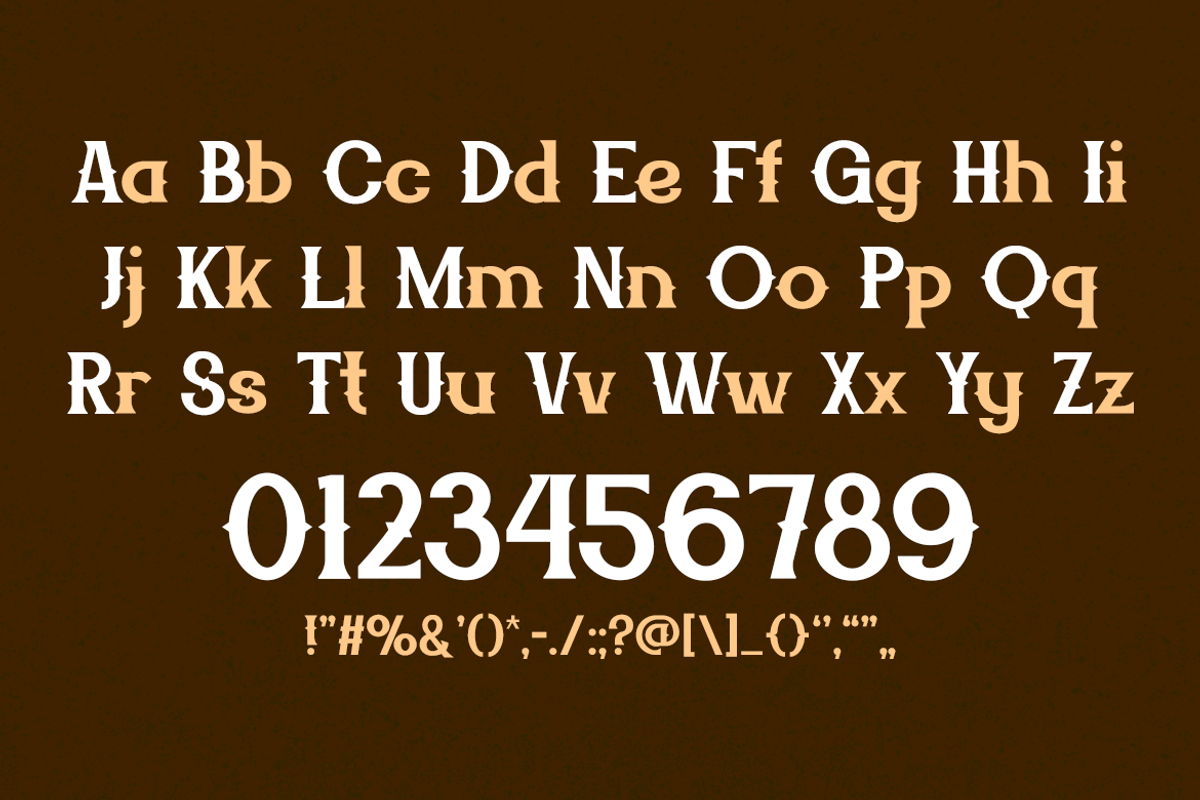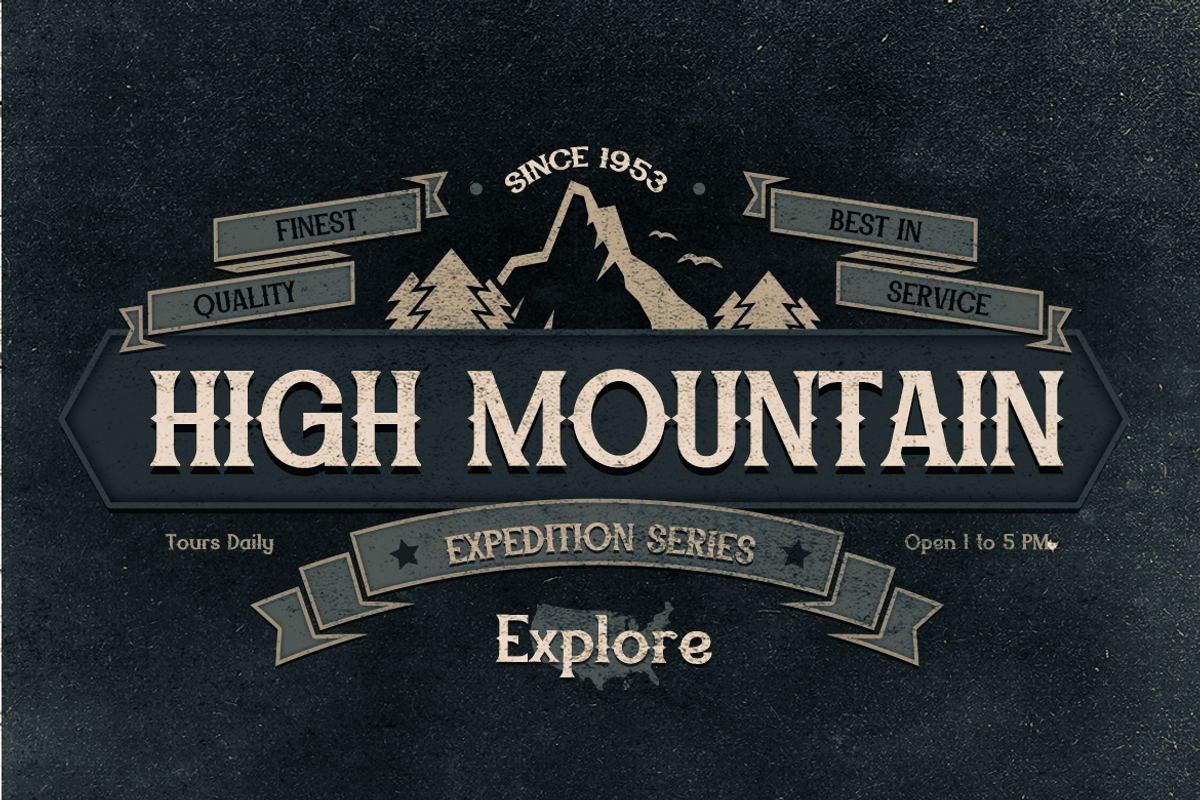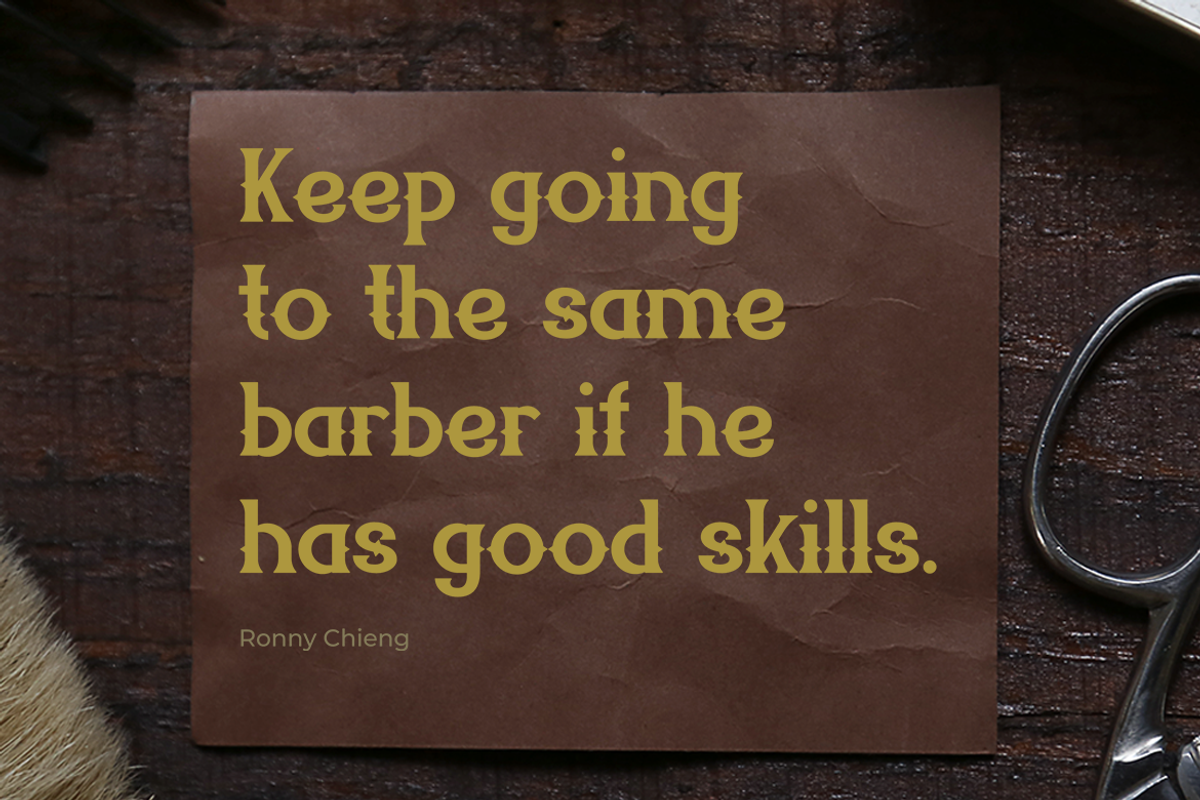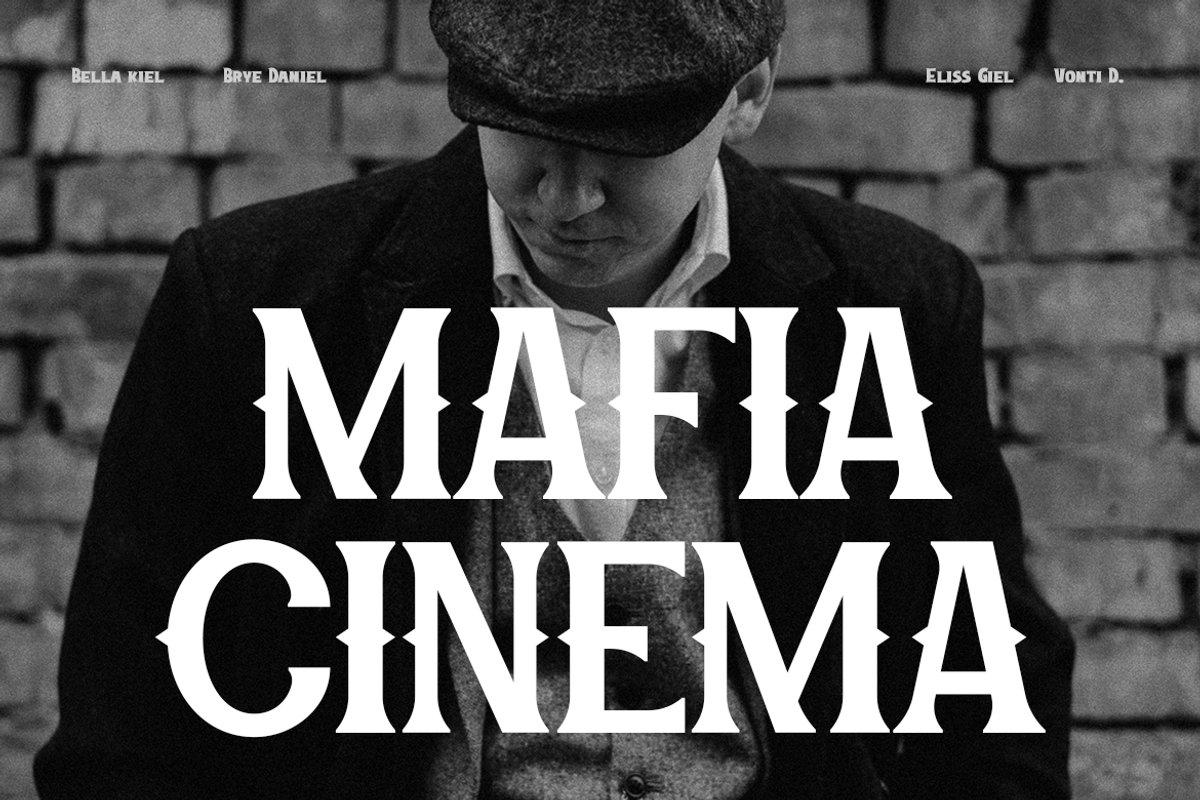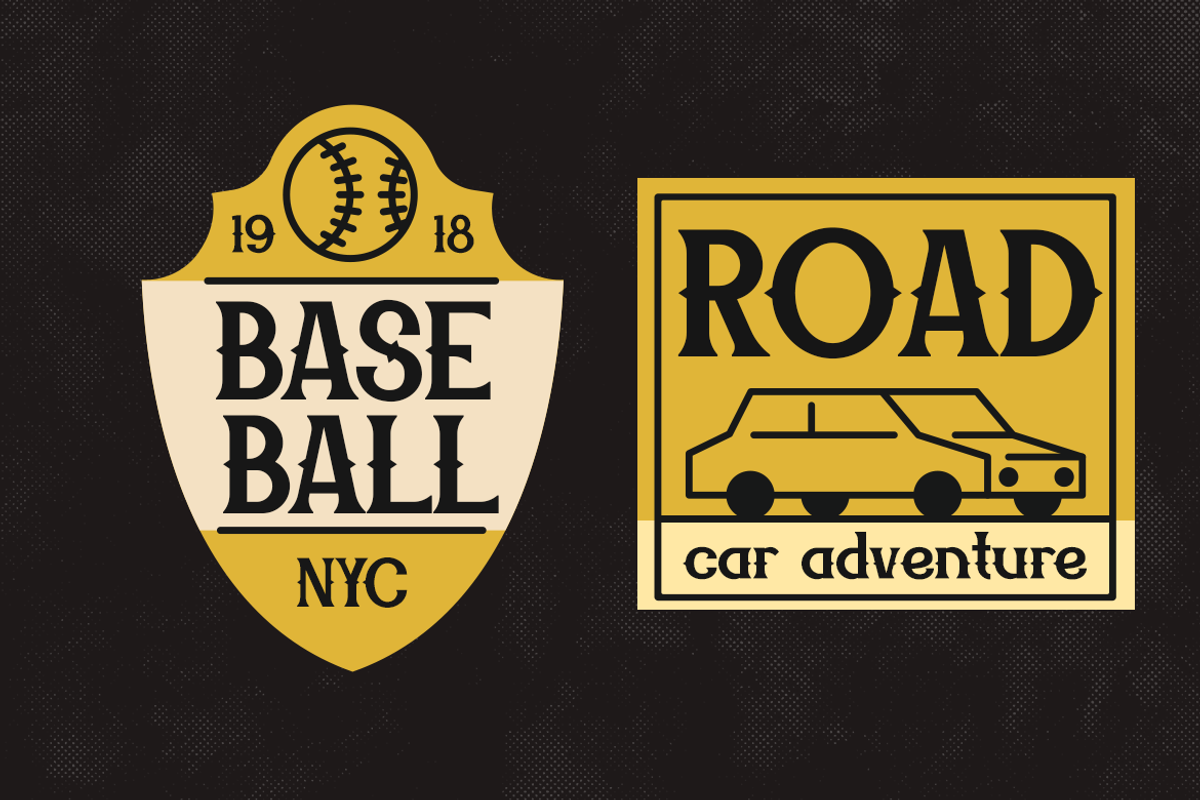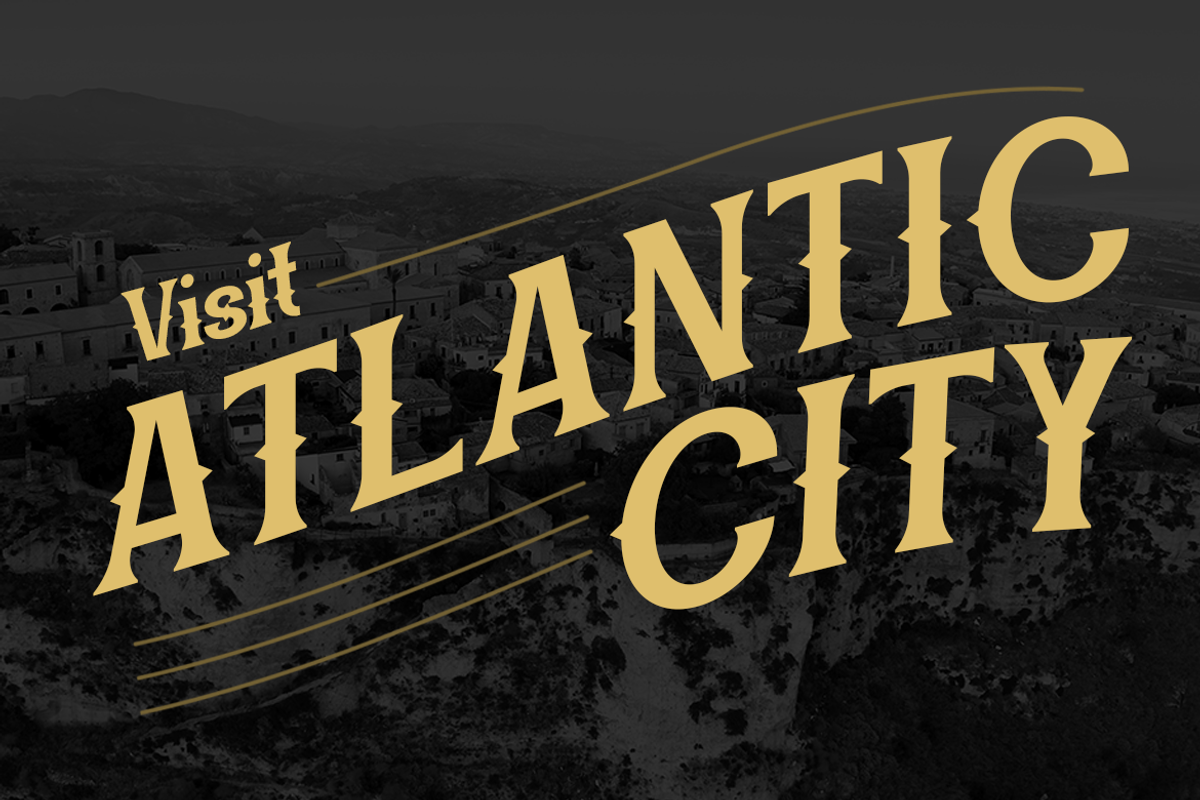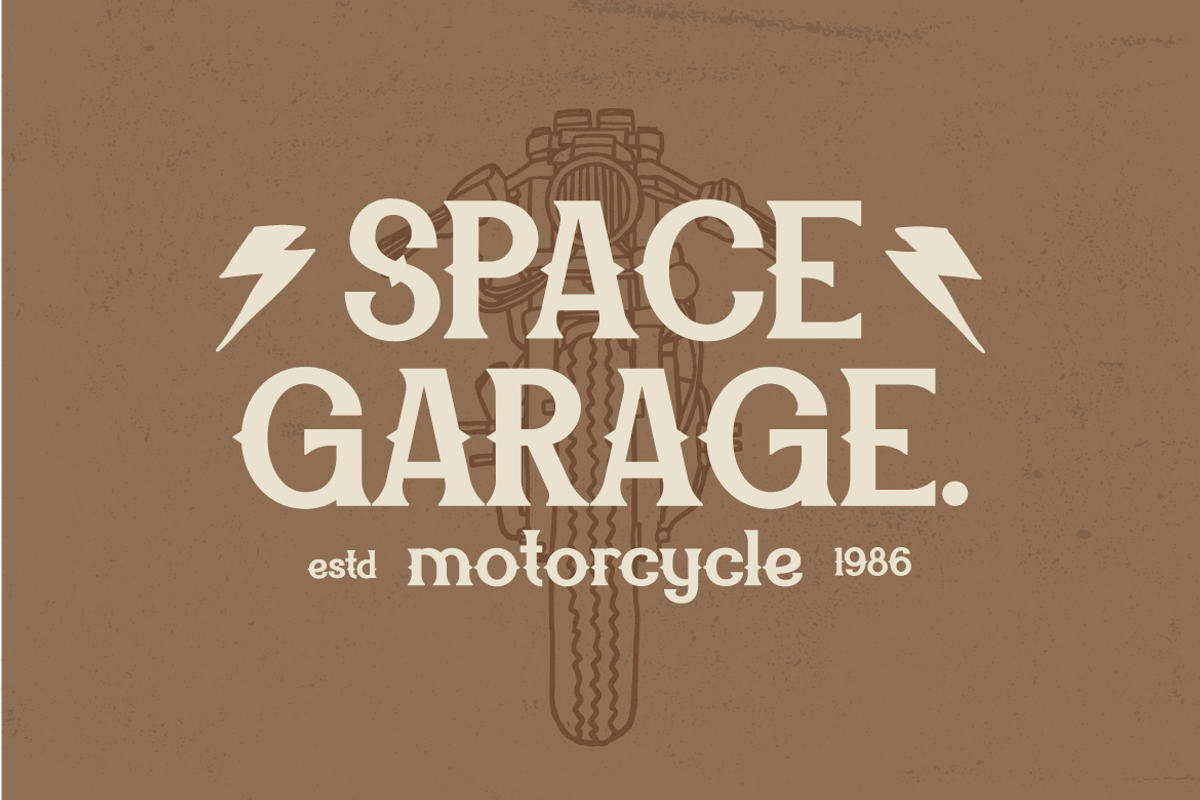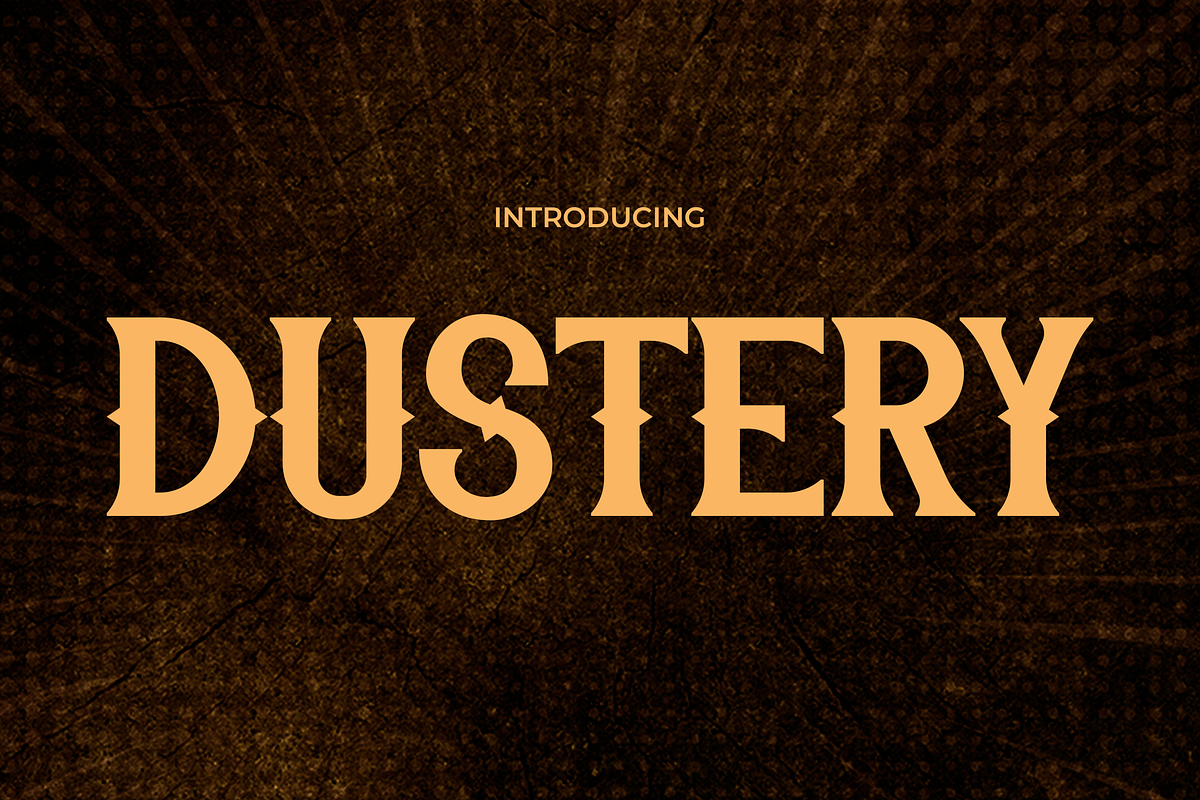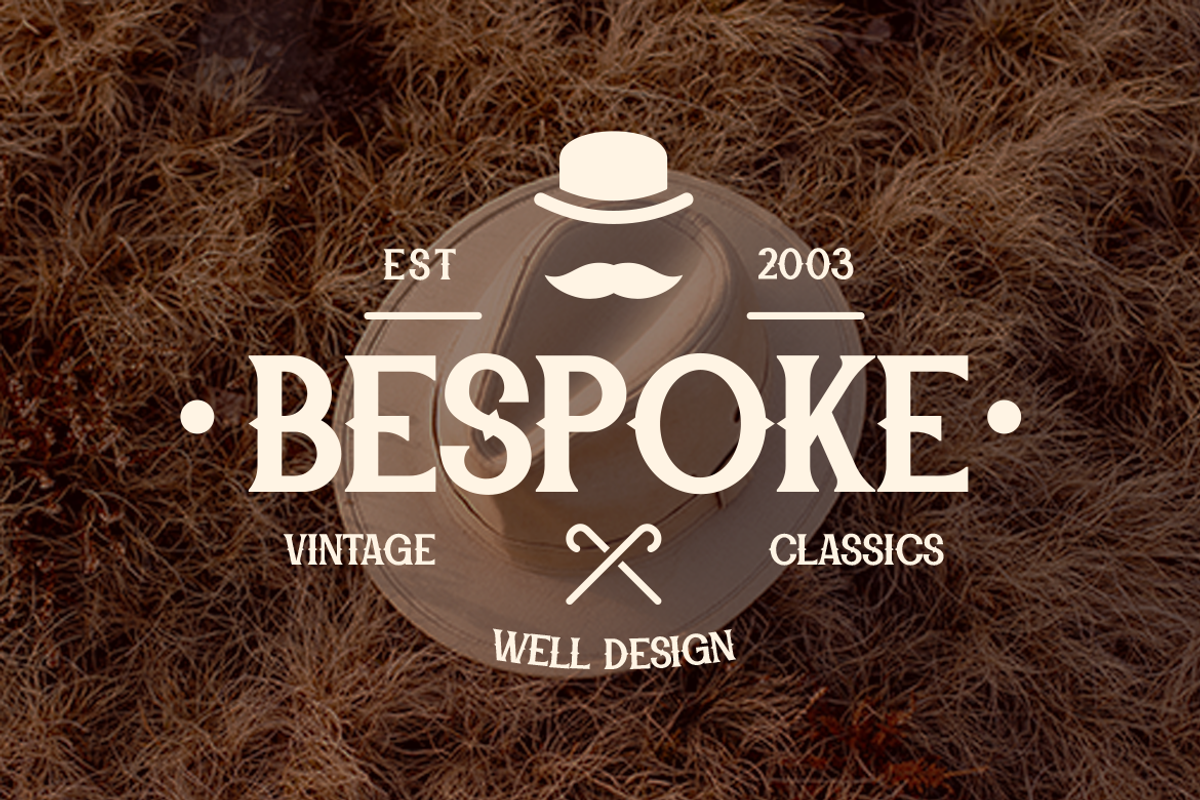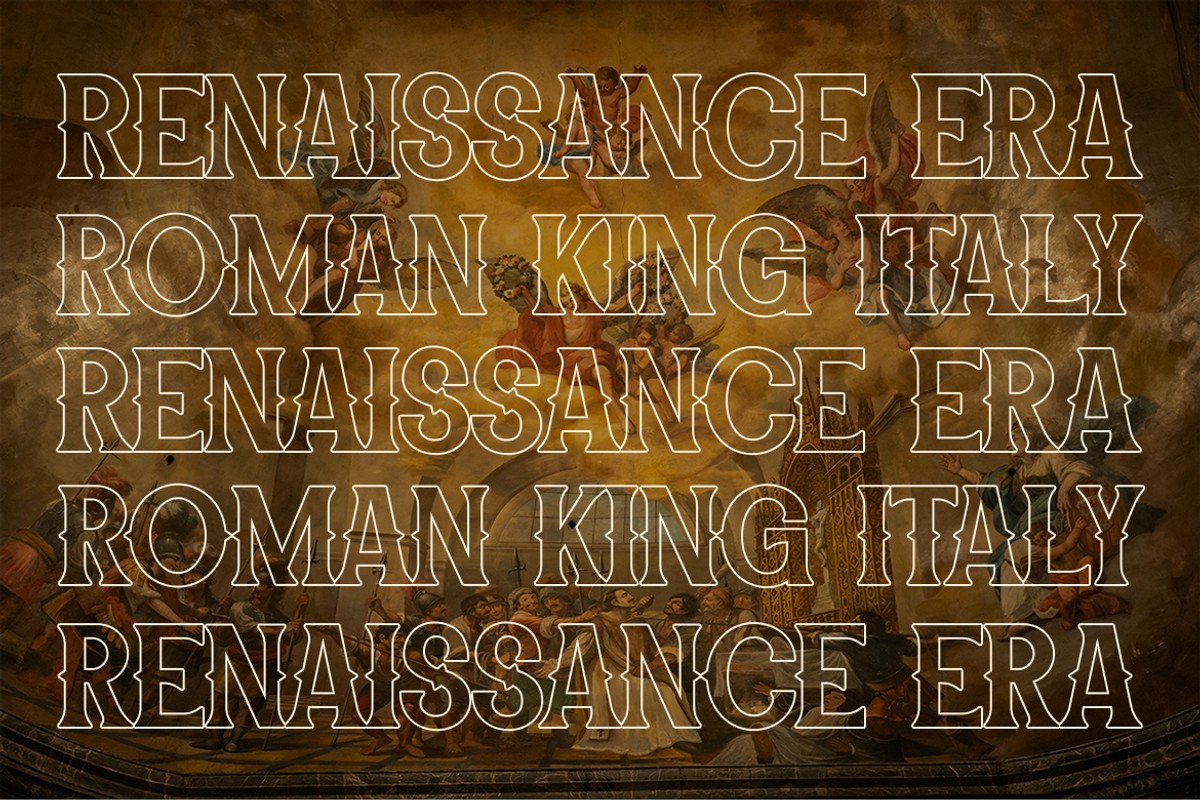
DUSTERY
Dustery - The Font of Mafia Movie Mystique!
Introducing "Dustery" - a font that encapsulates the gritty allure and raw intensity of a Mafia movie. Inspired by the clandestine world of organized crime, "Dustery" is designed to evoke the atmosphere of smoky backrooms, whispered conversations, and shadowy dealings.
With its bold, angular strokes and edgy aesthetic, "Dustery" exudes an air of menace and intrigue, making it the perfect choice for projects that seek to capture the dark allure of the underworld. Whether you're creating posters for a film noir screening, designing promotional materials for a crime thriller, or adding a touch of intrigue to your branding, "Dustery" will lend your designs an unmistakable aura of mystery and danger.
Channel the spirit of cinematic classics as you unleash the power of "Dustery" upon your projects. Let its rugged charm and enigmatic appeal transport your audience to a world where danger lurks around every corner and secrets are currency. Embrace the allure of the underworld with "Dustery" - the font that brings the drama of Mafia movies to life.